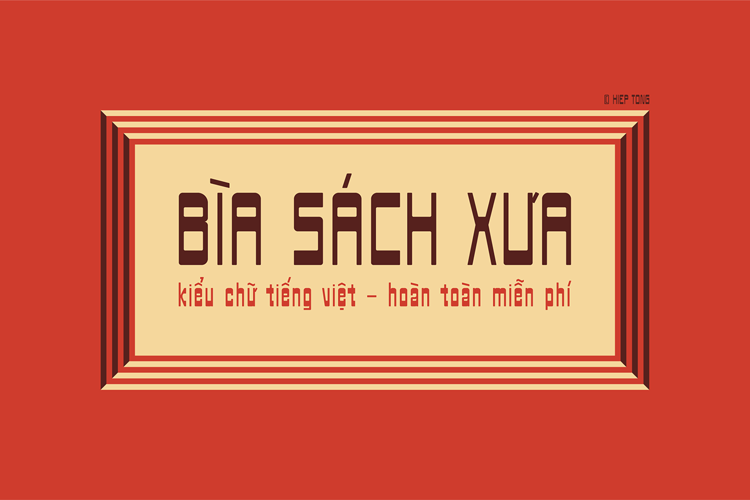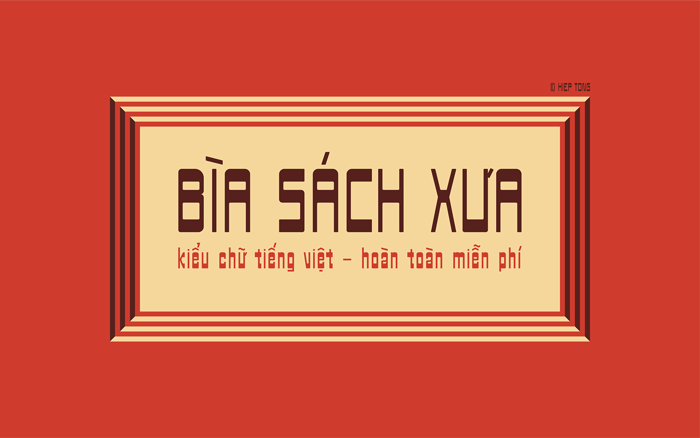
Biasachxua Font
Biasachxua means "Bìa sách xưa" in Vietnamese (English: Old book cover). It was created by Hiep Tong, a designer who loves the old things.
I wanted to save the old values so I created this typeface. Biasachxua typeface has supported for Vietnamese and many other languages.